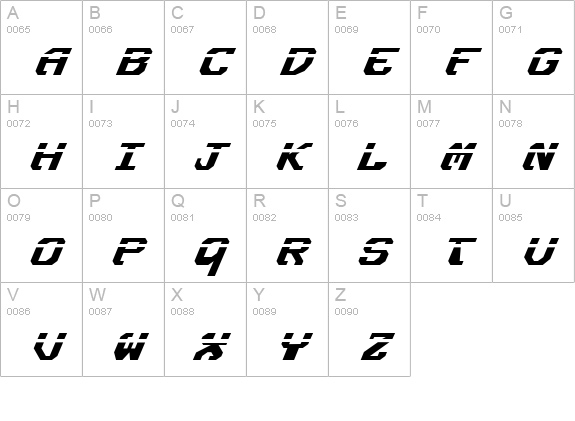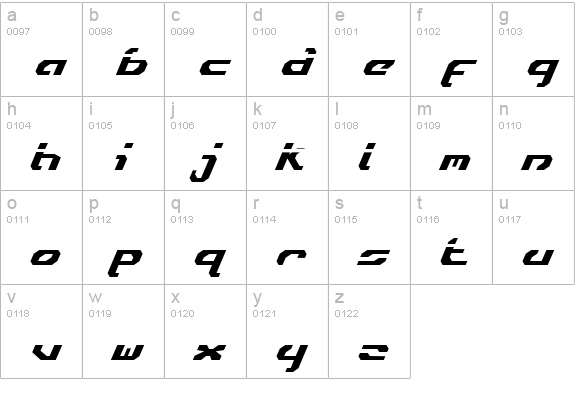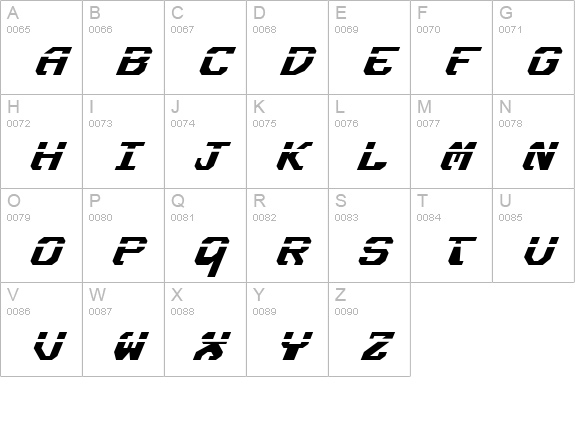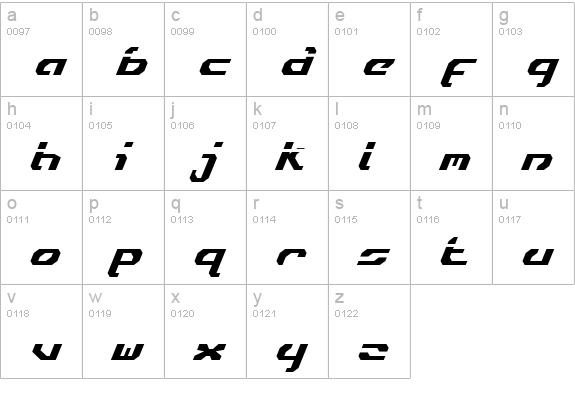
Ensign Flandry Laser Italic is a distinctive, italic variant in the Ensign typeface family \xE2\x80\x94 well suited to design and typography projects.
Ensign Flandry Laser Italic is a sleek and stylish font that exudes a sense of modernity and sophistication. Its laser-cut inspired design gives it a unique edge, making it perfect for projects that require a touch of contemporary flair. The italicized style adds a dynamic and energetic feel to any text, making it stand out with a touch of elegance. This font is freely available to download at FontsMarket.com, making it easily accessible for designers, creatives, and enthusiasts alike. Whether you're working on branding, advertising, or creative projects, Ensign Flandry Laser Italic is sure to elevate your designs with its eye-catching appeal and versatility. Experience the freedom of creativity with this stunning font at your fingertips.